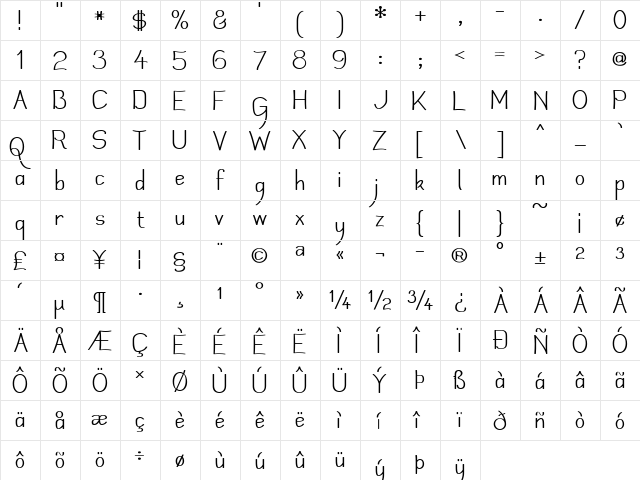
Mechanihan Regular
| Designer | Graham Meade |
Design Context for Mechanihan Typeface
Mechanihan takes a measured approach to typography — its balanced proportions and neutral character make it a reliable workhorse for both digital and print work.